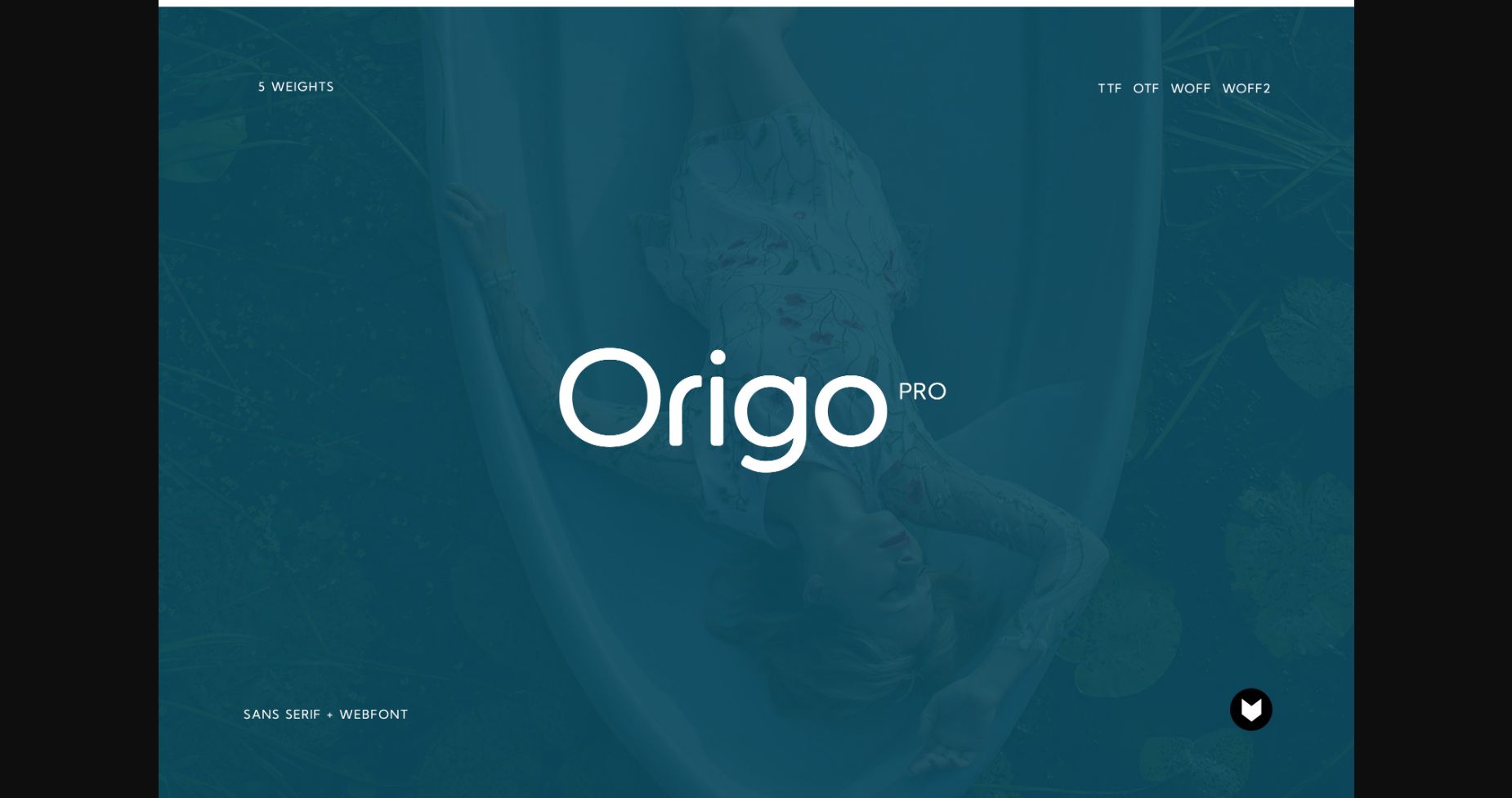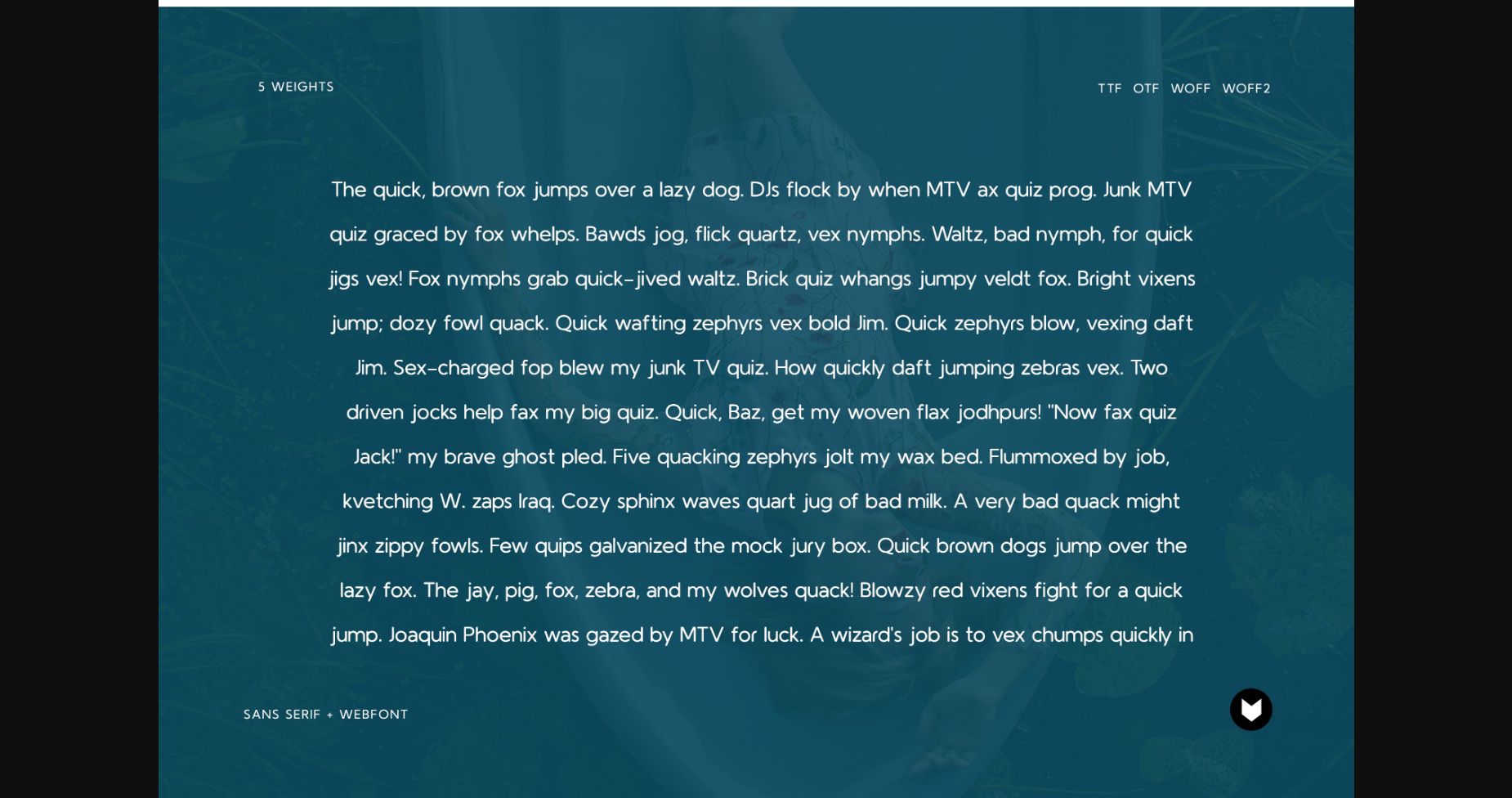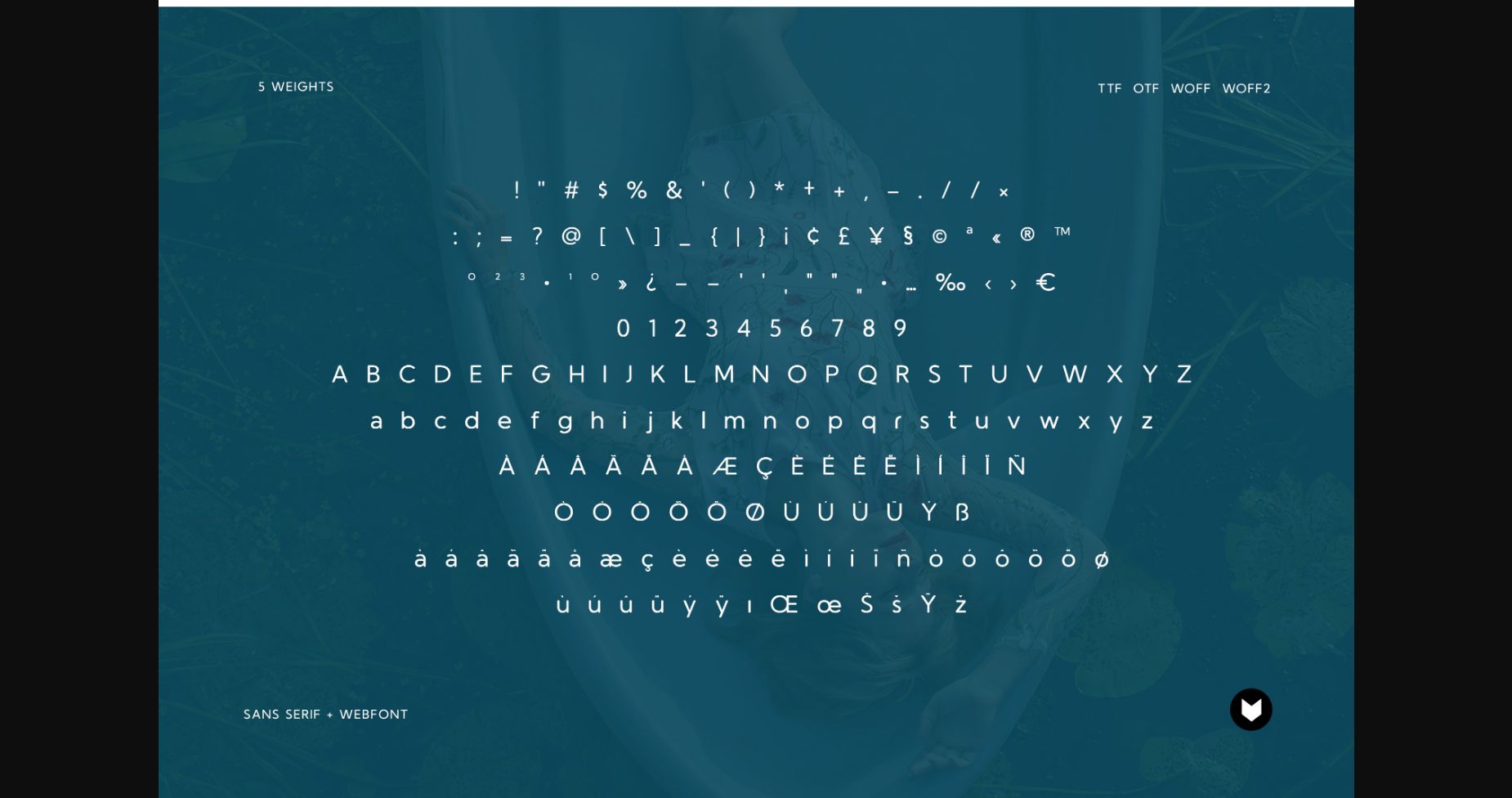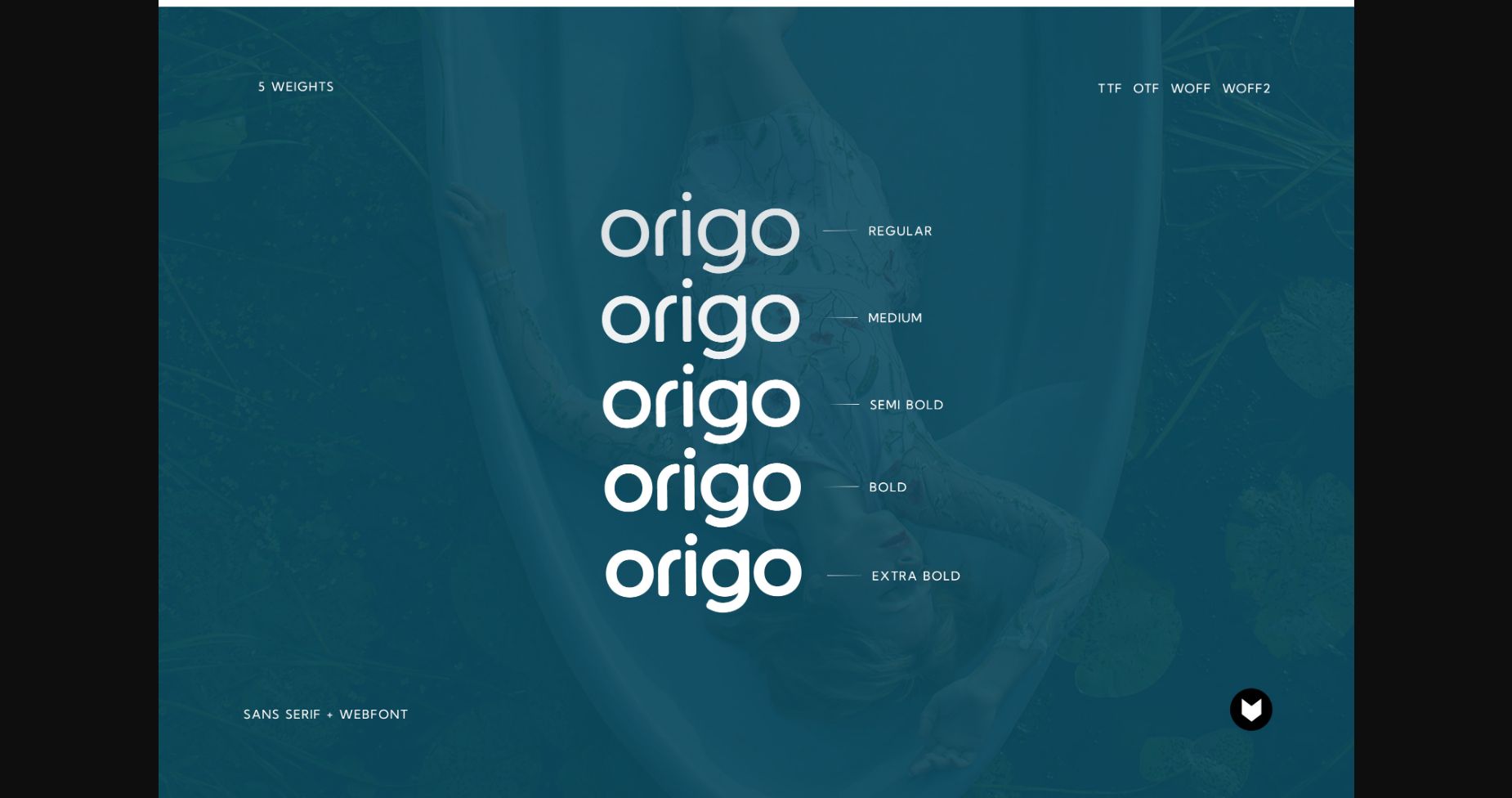
About Origo Pro Font
Origo Pro is a simple and clean sans serif font. It is ideal for writing web designs, business cards, or pretty much anything else that requires a modern touch.